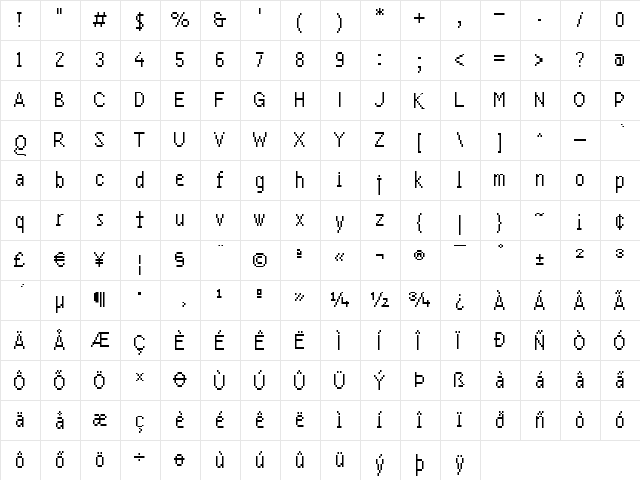
LAplakett.com Screen
Design Context for LAplakett.com Typeface
LAplakett.com is a composed and adaptable typeface that performs quietly and consistently across a wide range of design contexts.